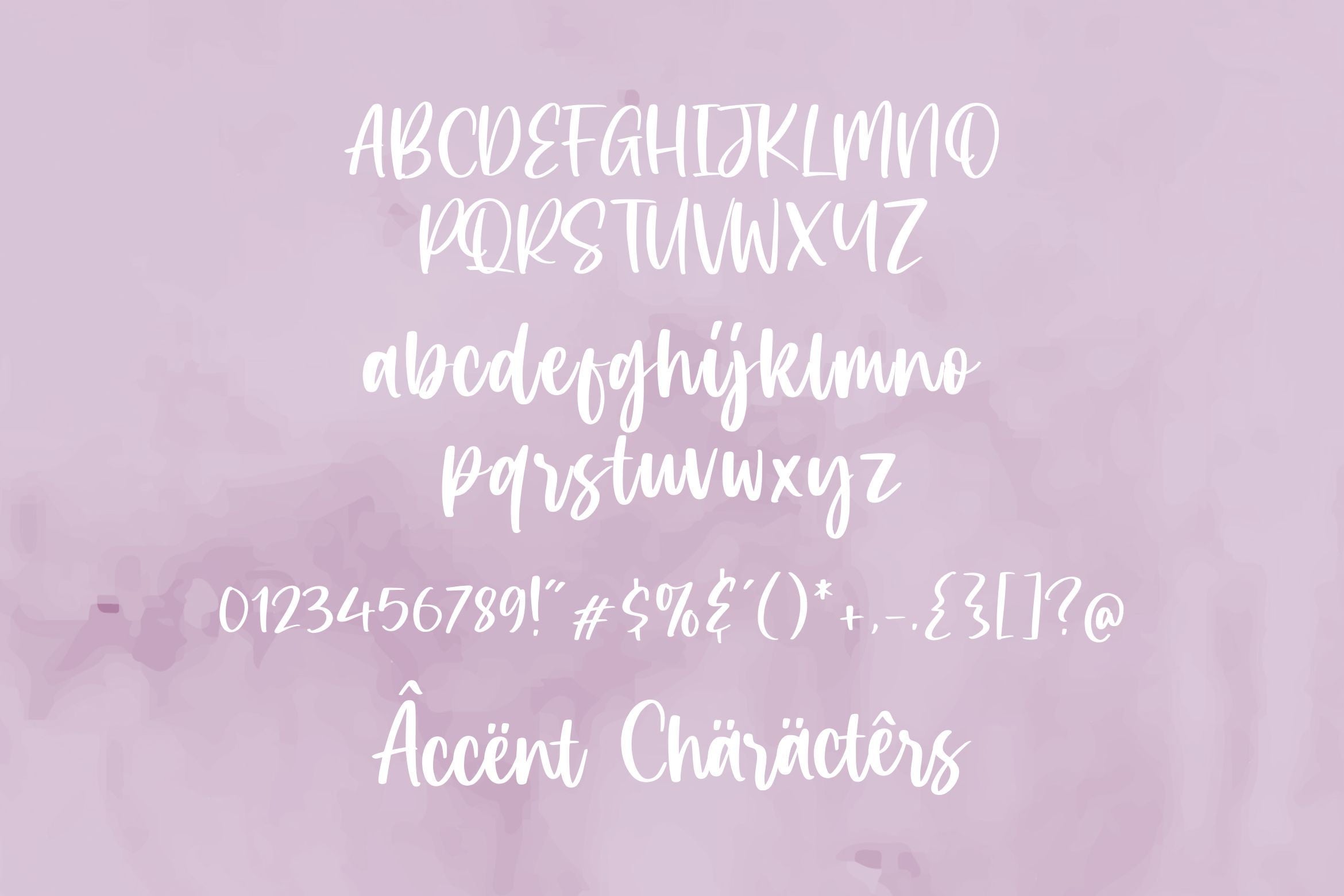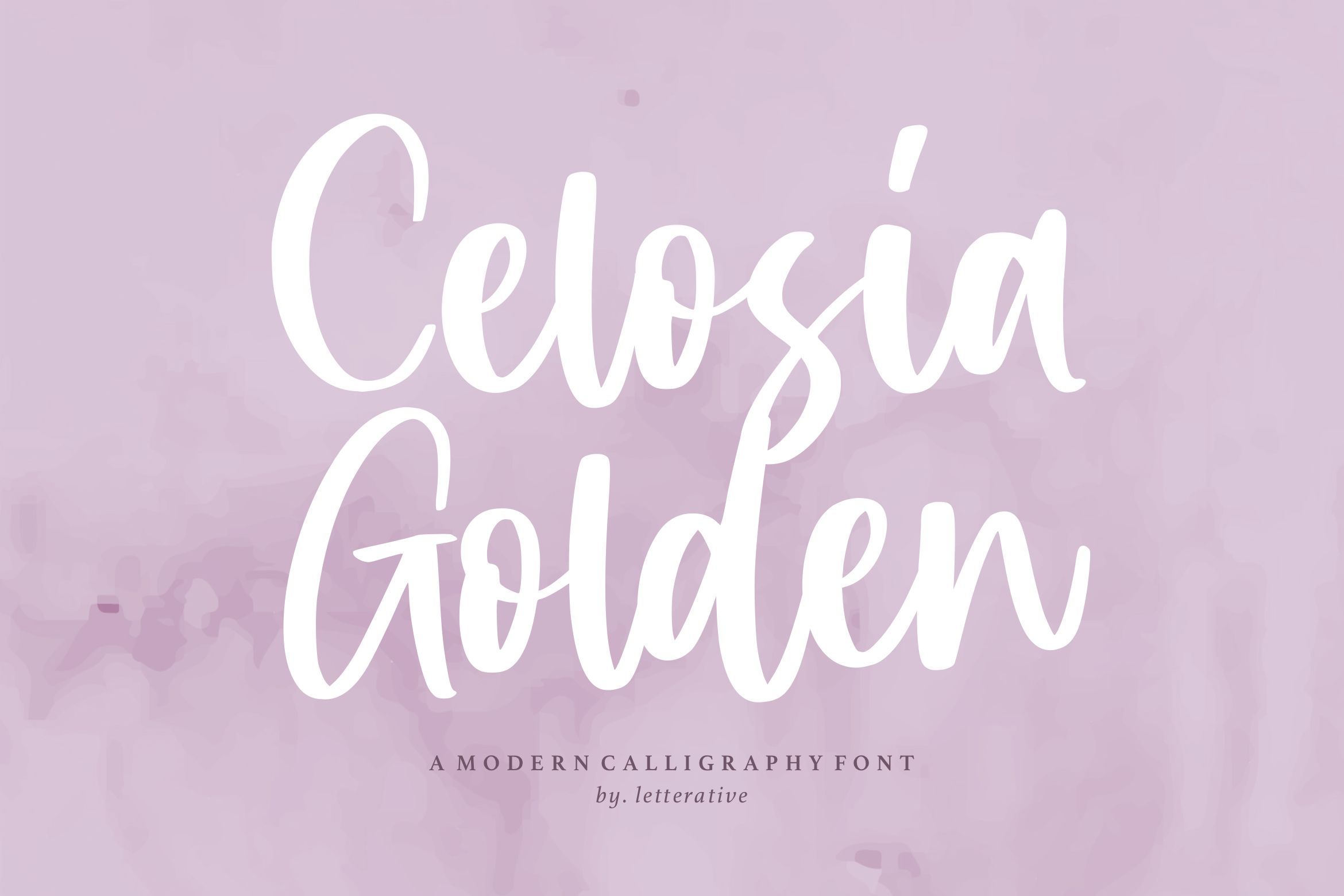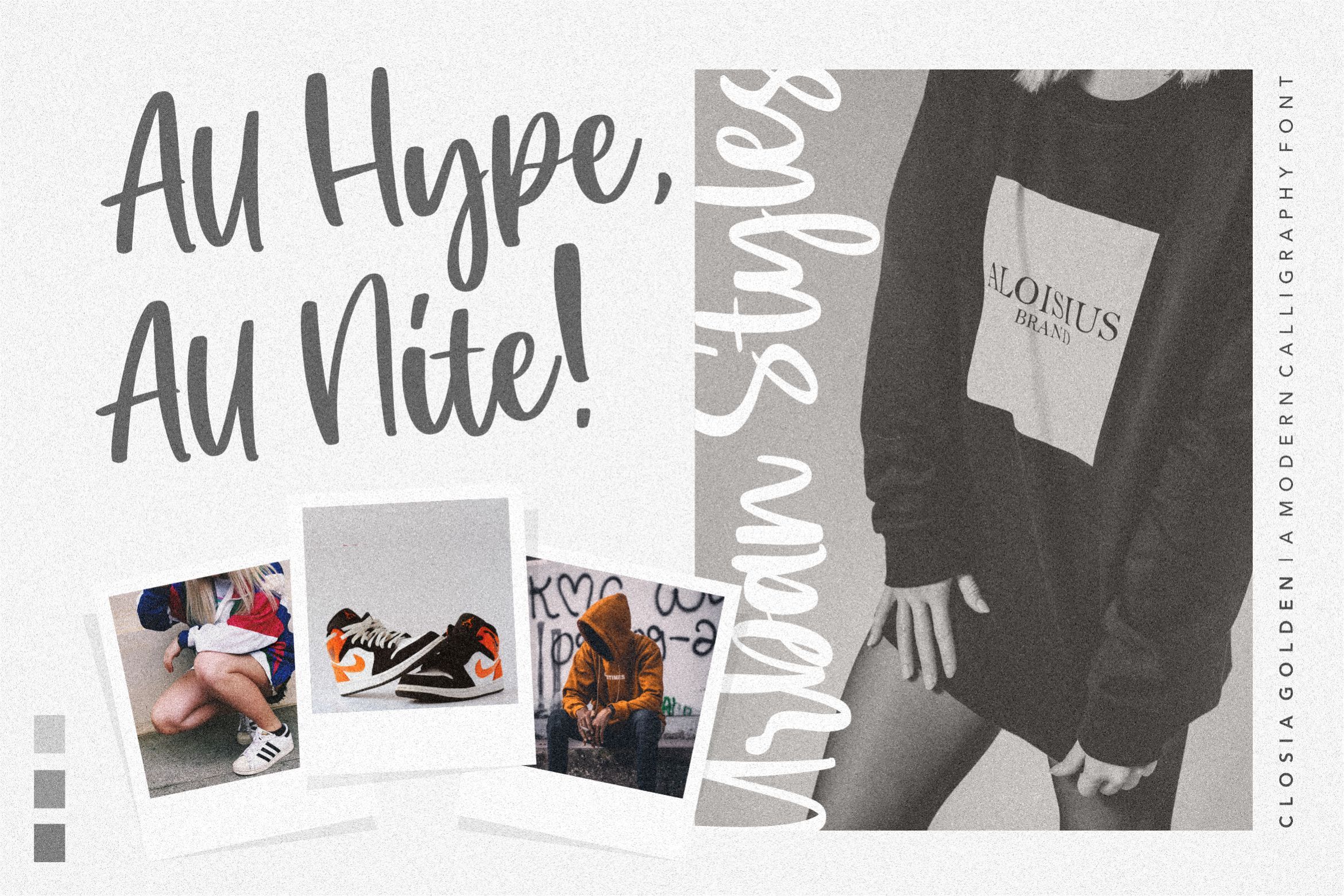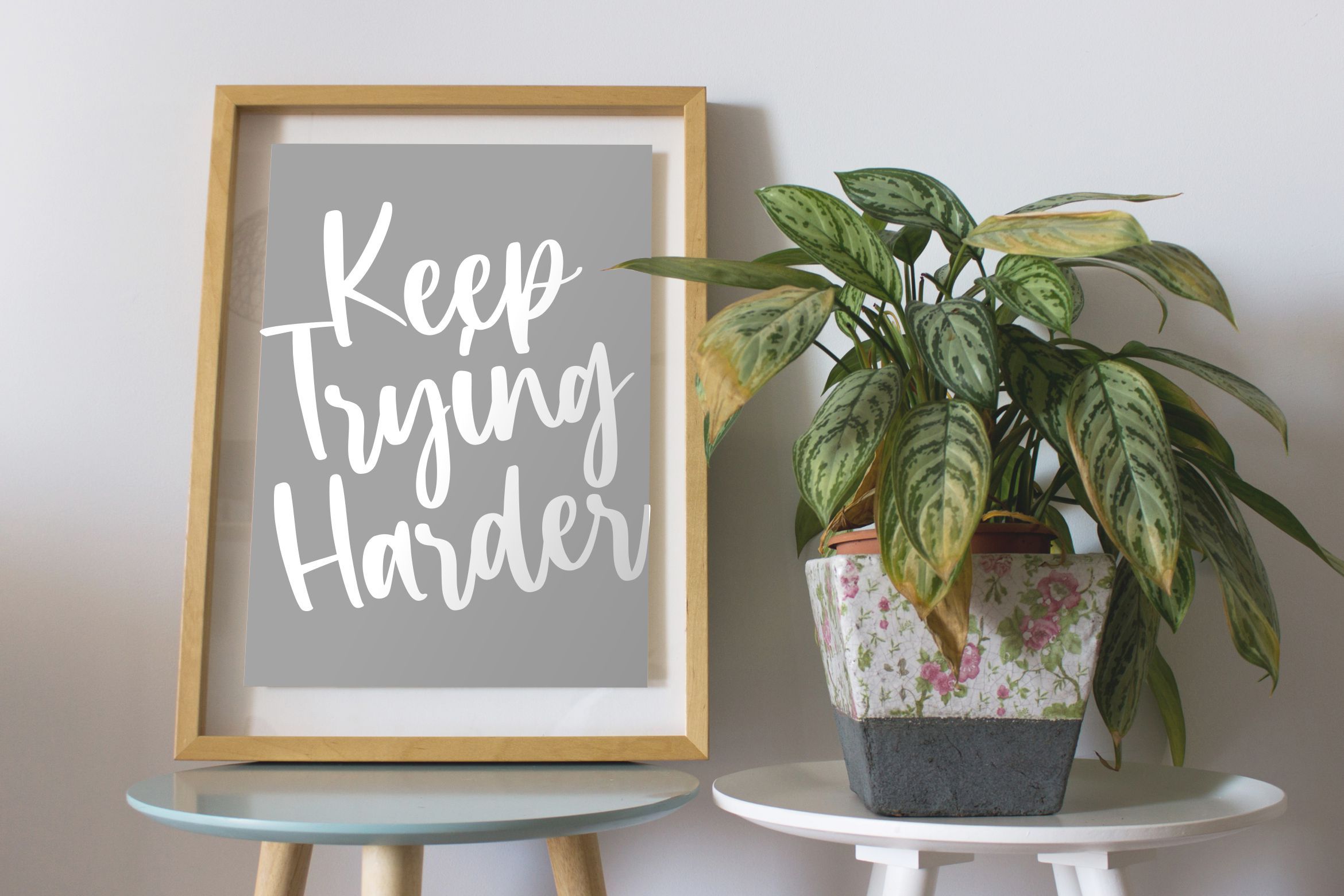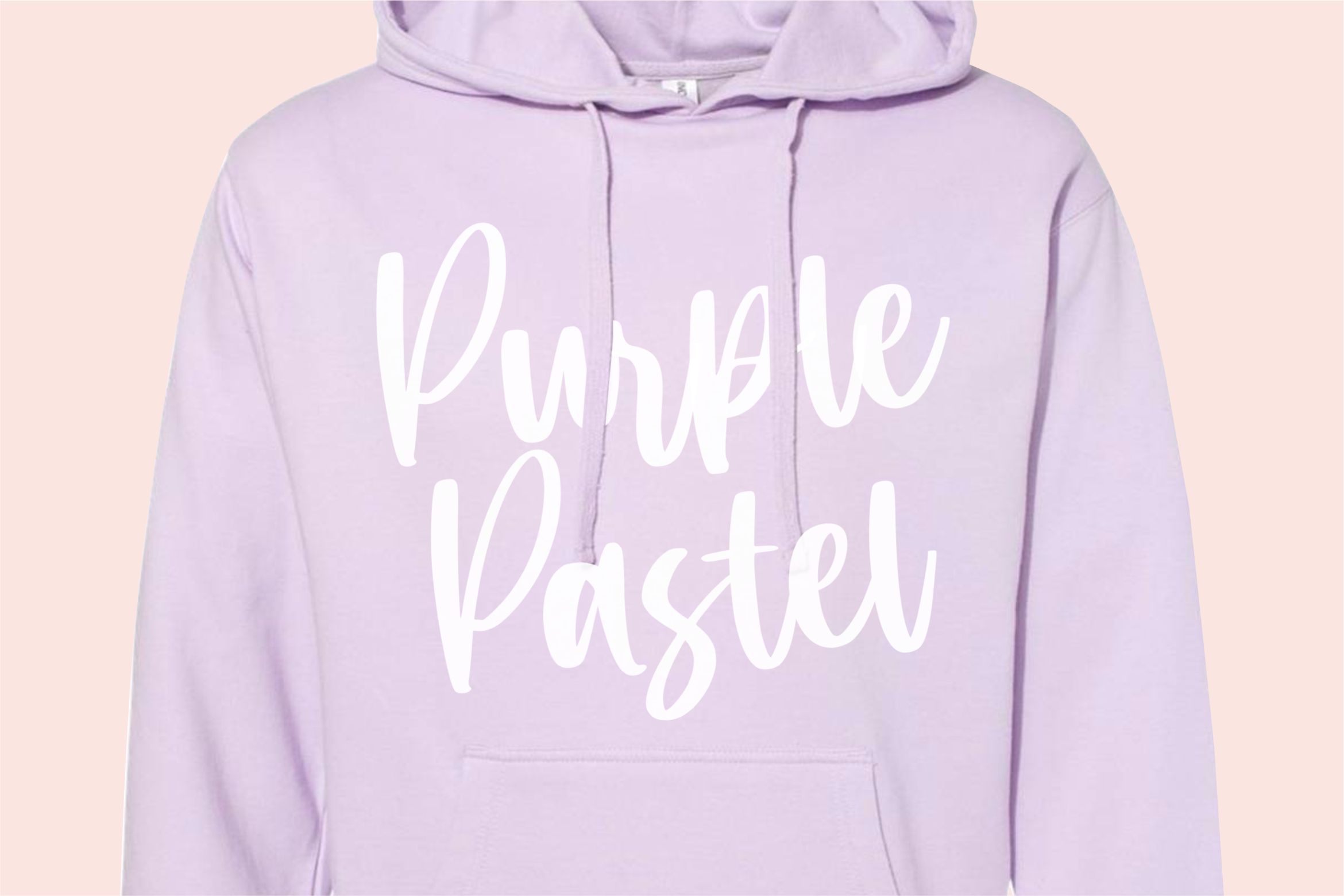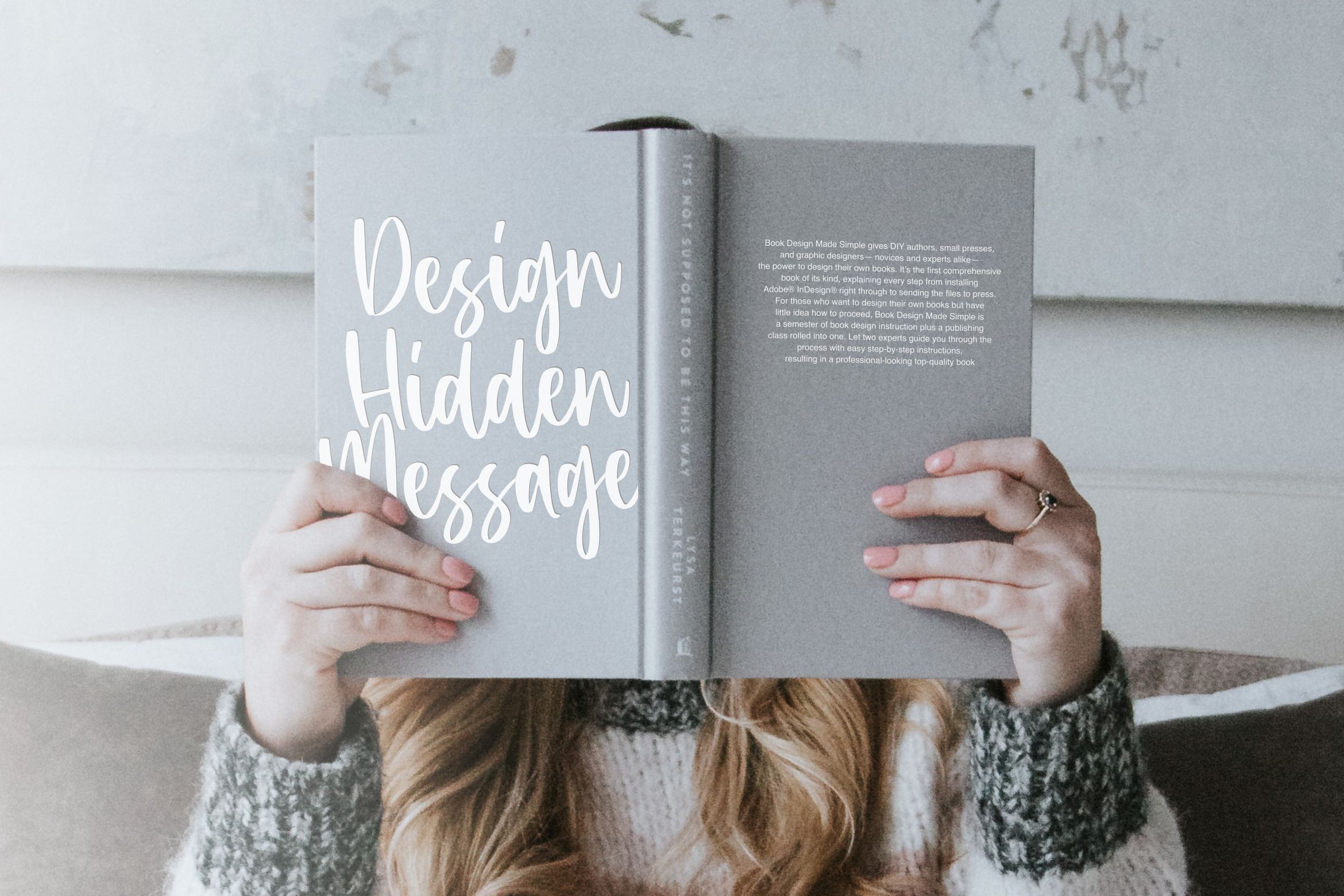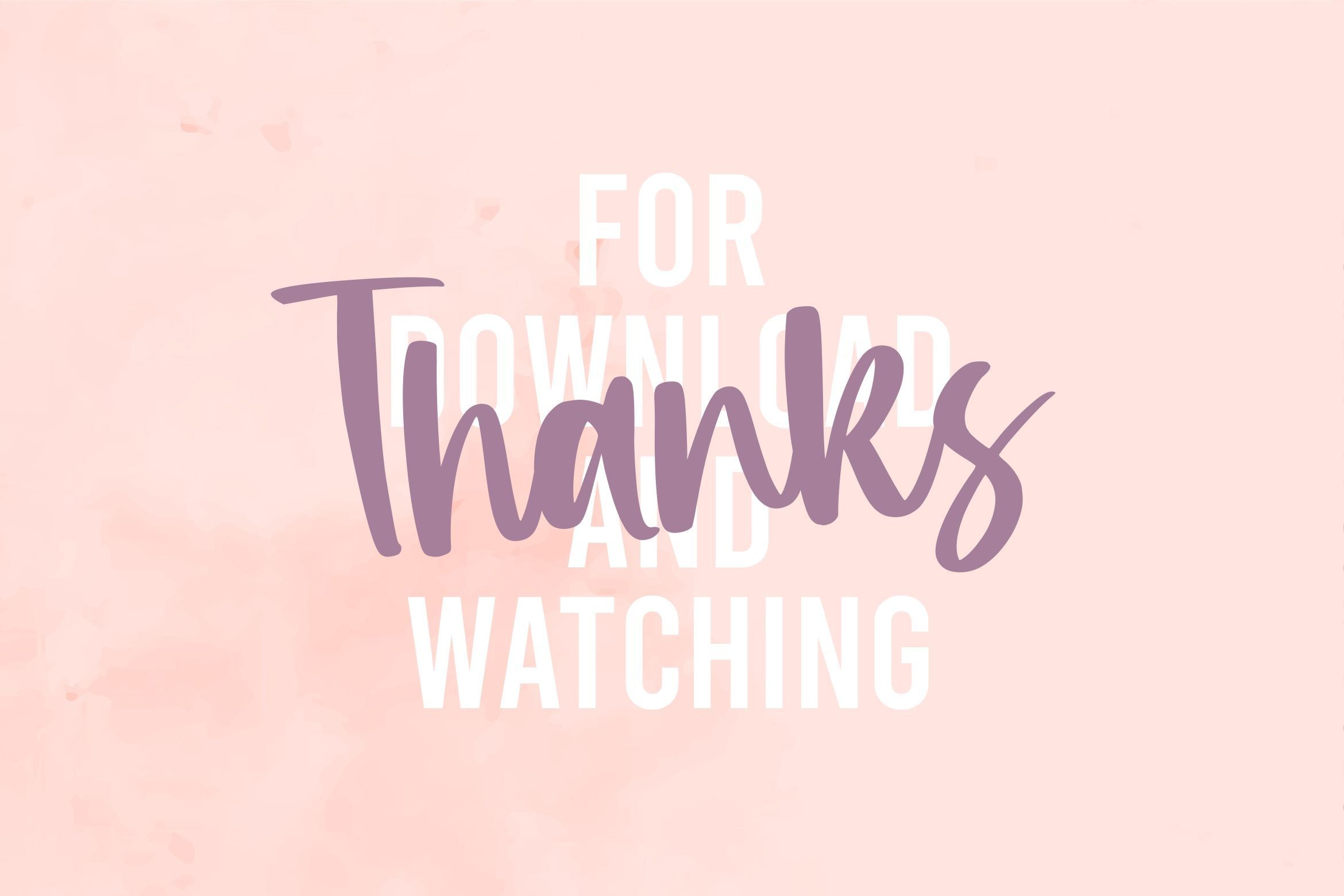
Celosia Golden Modern Calligraphy Font
About Celosia Golden Modern Calligraphy Font
Introducing by Letterative Studio : Celosia Golden Font Celosia Golden is a Modern Calligraphy Font Celosia Golden is a delicate, elegant and flowing handwritten font. It has beautiful and well balanced characters and as a result, it matches a wide pool of designs. Add it to your most creative ideas and notice how it makes them come alive! This font includes : TTF and OTF Celosia Golden also multilingual support Enjoy the font! Feel free to comment or feedback Send me PM or email Thank you!